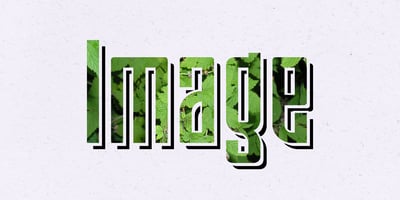
Moho FX Shadow Pro
Moho FX Shadow Pro font
Moho FX Shadow Pro Font Family was designed by John Moore and published by John Moore Type Foundry. Moho FX Shadow Pro contains 8 styles and family package options. A display font collection for fantasy headlines within the concept of Moho Condensed based in letters with shadows as Moho Umbra Regular and Italic, or simple shadow effect as Moho Shadow Regular and Italic, or font effects to be used in color layers. all ideal for interesting lettering to magazines, posters and labels design.